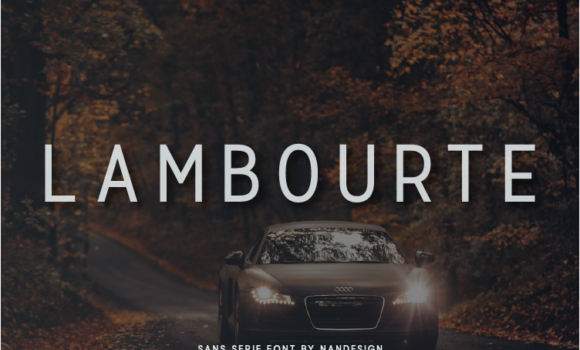
lambourte
Lambourte Font - Featured Image
Lambourte Font – Free Download Introduction to Lambourte Font Lambourte is simple, clean and incredibly versatile sans serif font. 📸 Preview Gallery 1 image 📌 Product Name Lambourte Font 👤 Author Nan Design 📂 Category Explore ⬇️ Download Lambourte Font